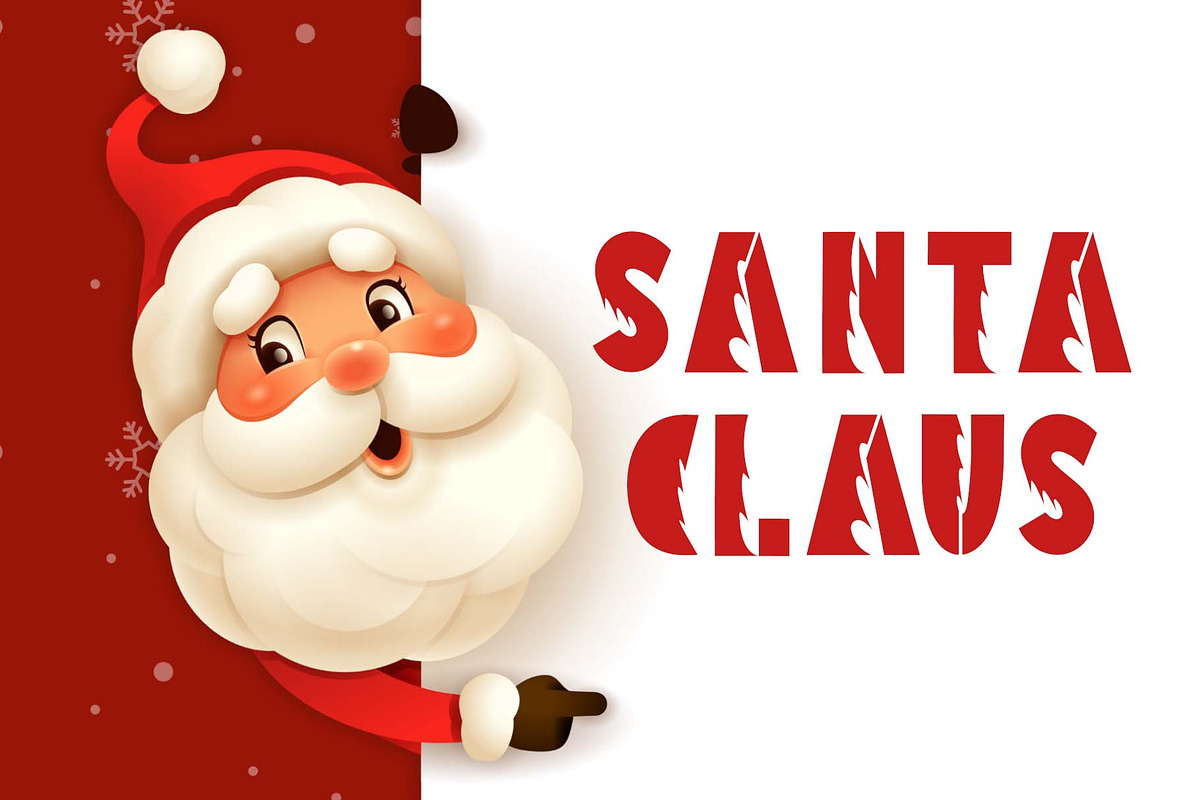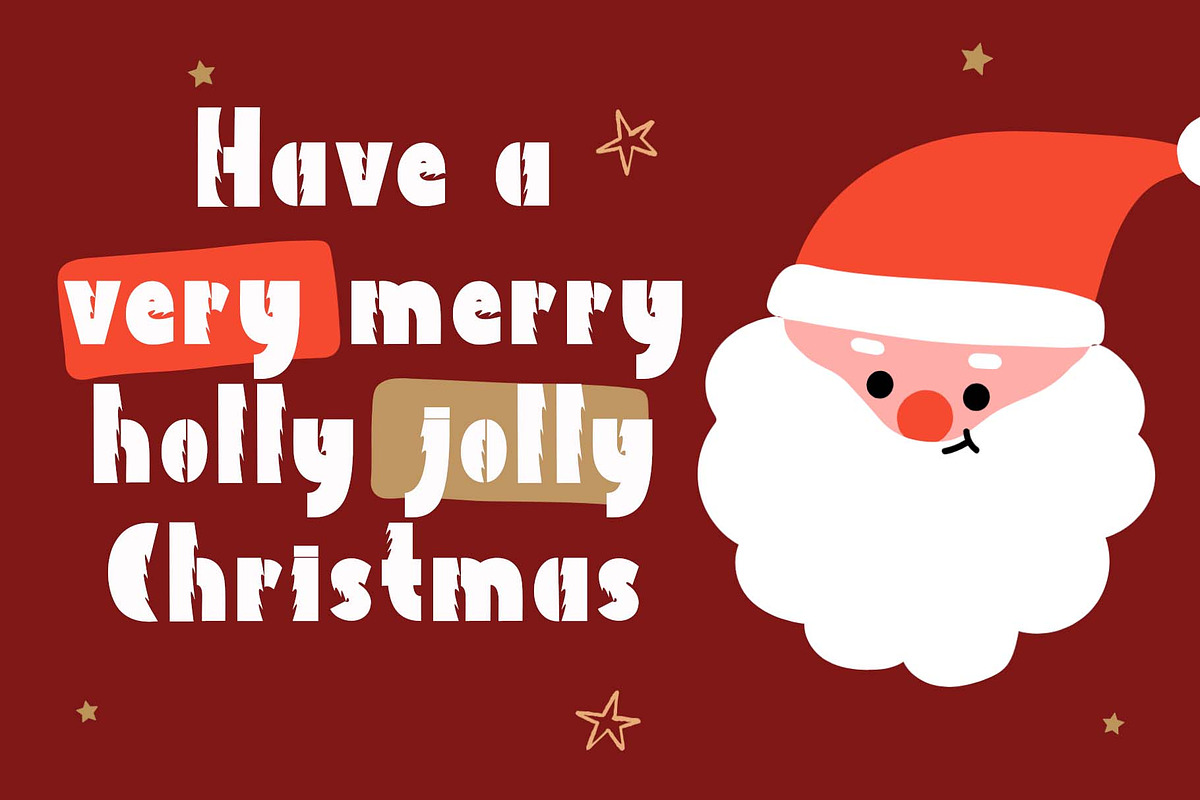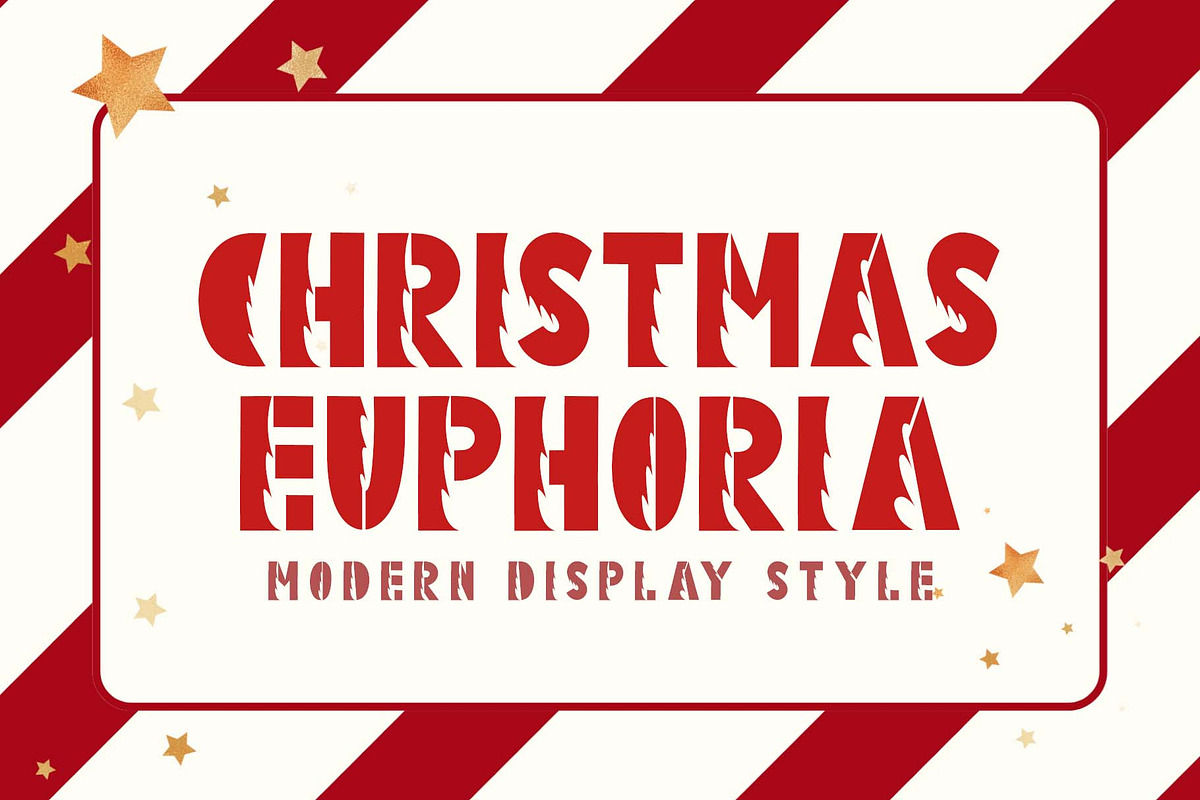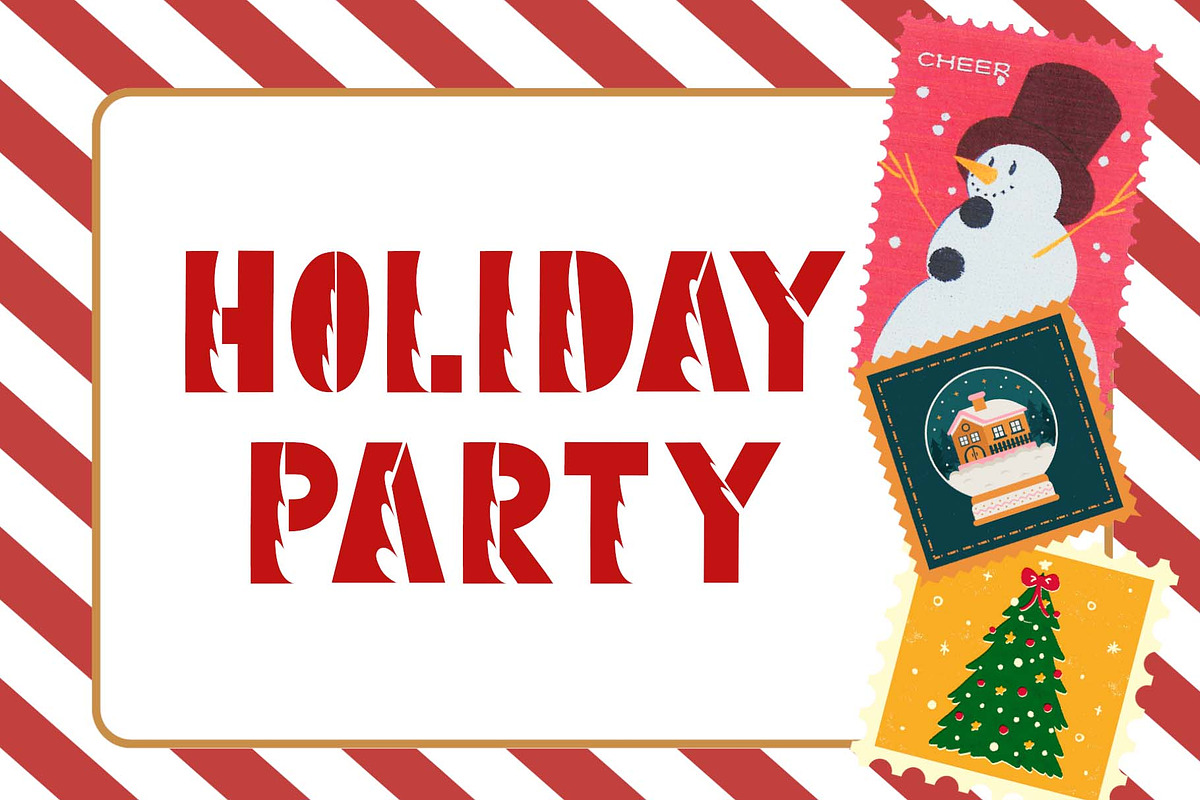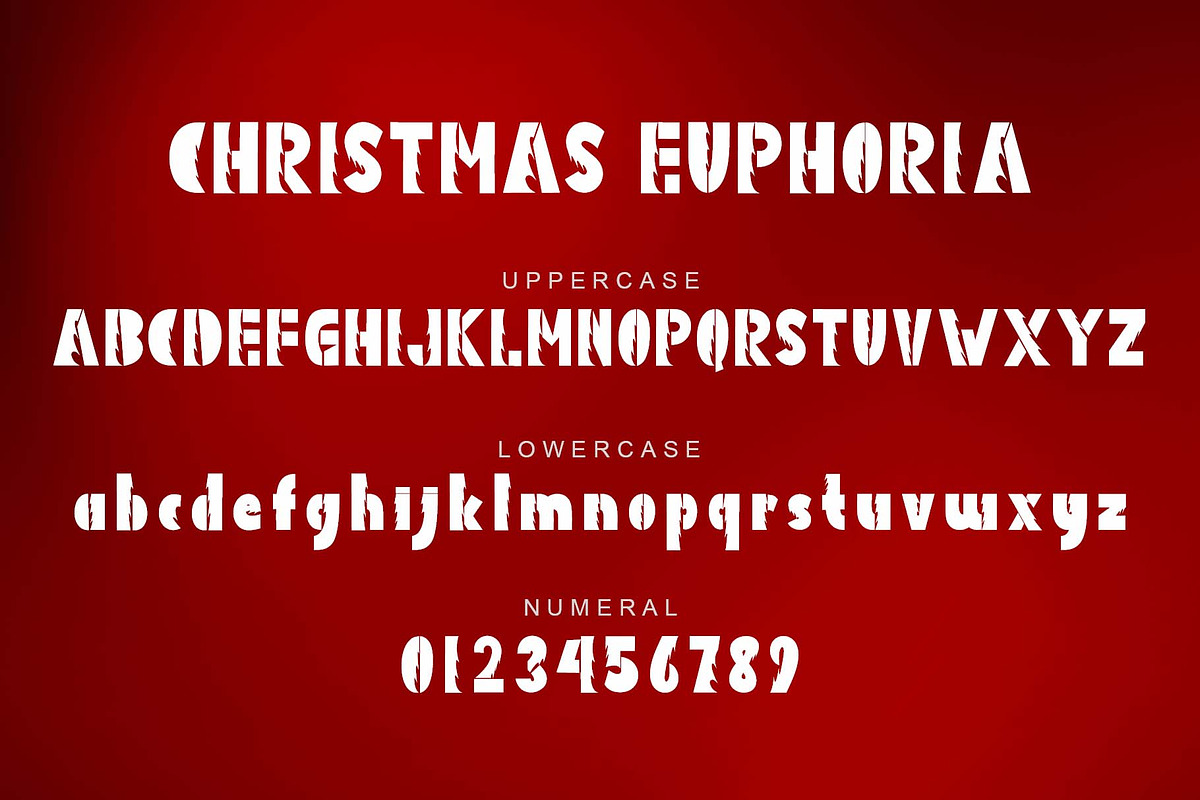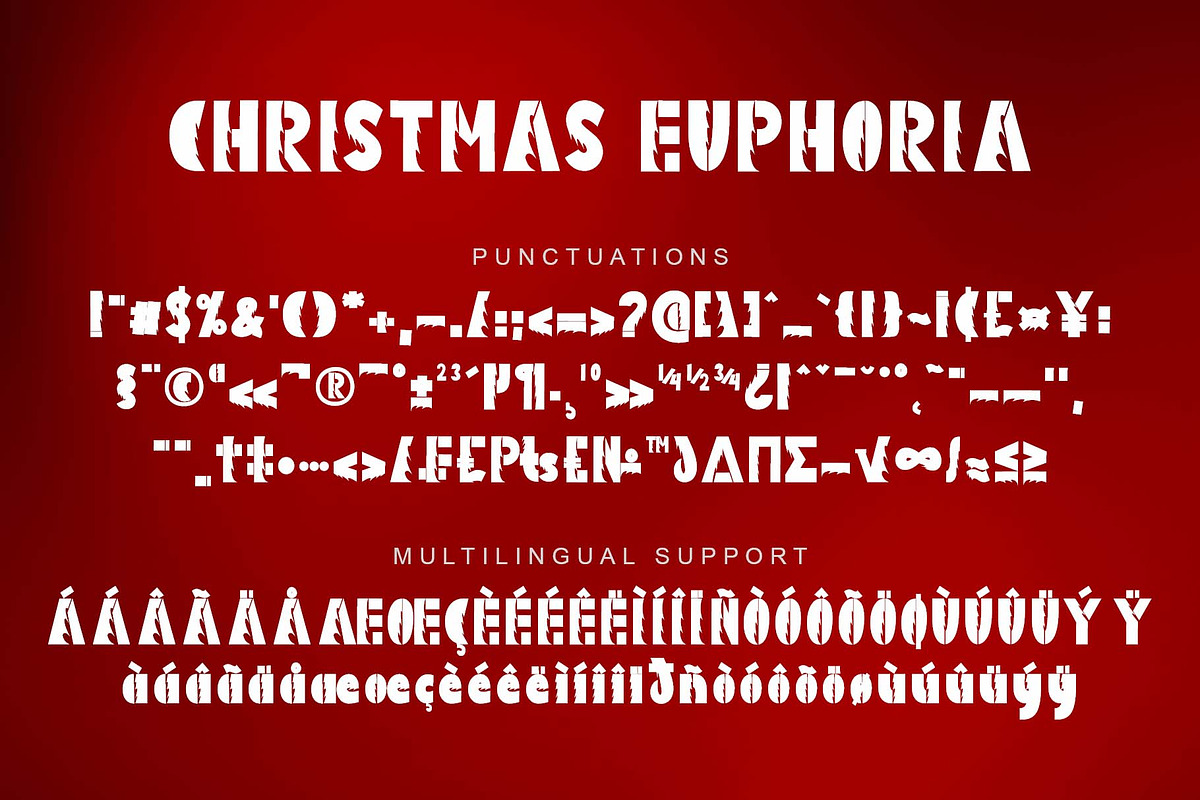
Christmas Euphoria
"Christmas Euphoria" is a unique and elegant display font. This font is equipped with uppercase, lowercase, numeral, punctuations and multilingual support. It is very suitable for use for Christmas, summer, spring, 4th of July, banner, father's day, branding, sticker, poster, print, logo and others.